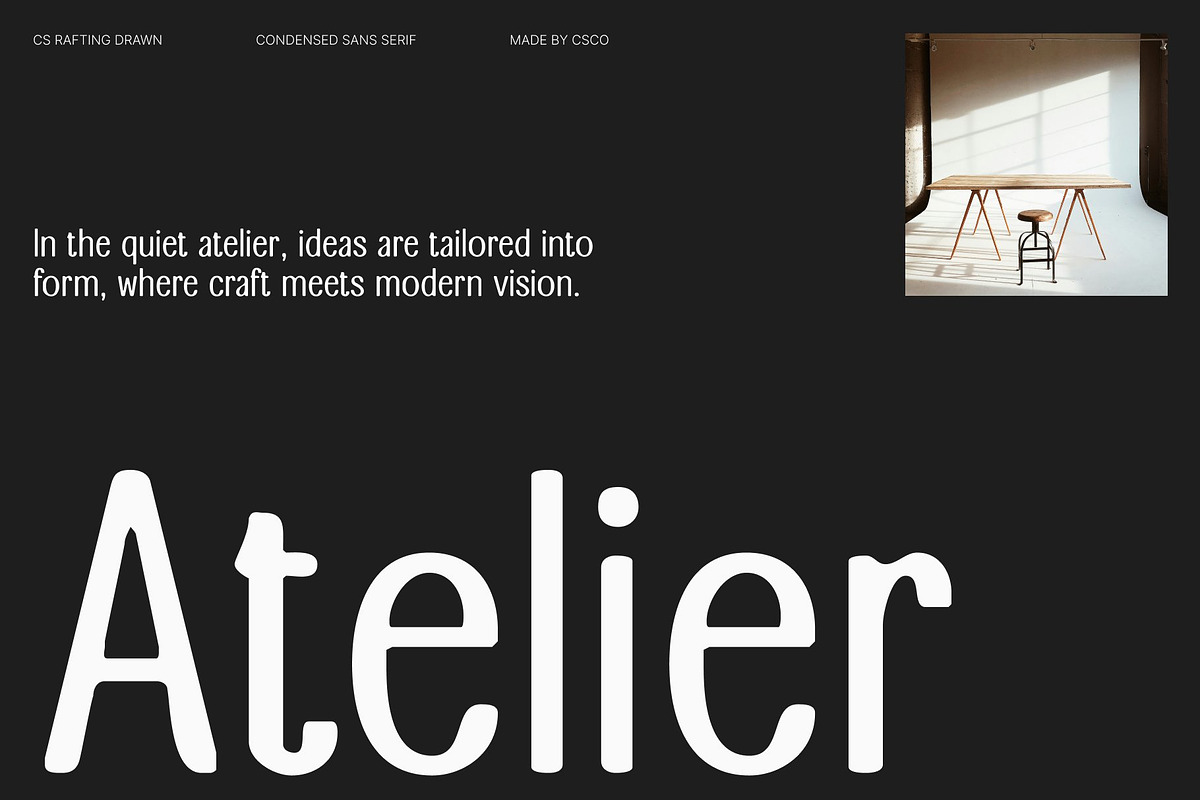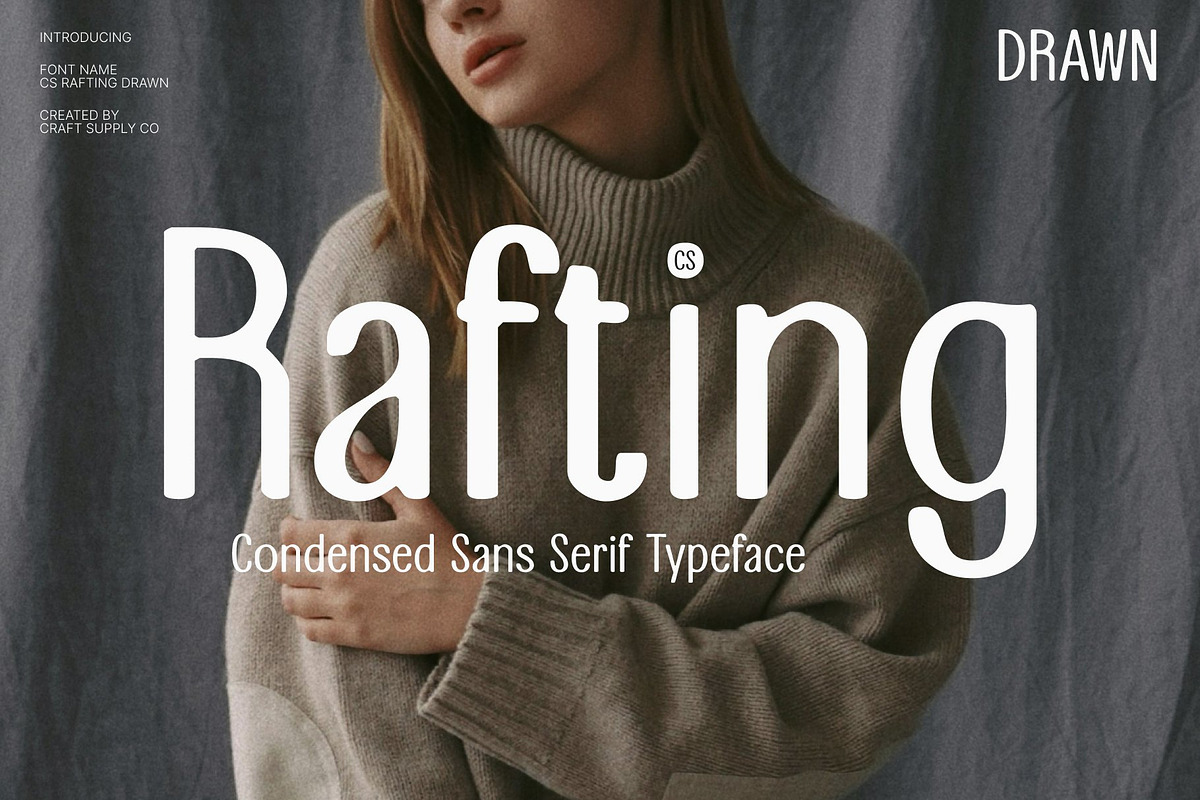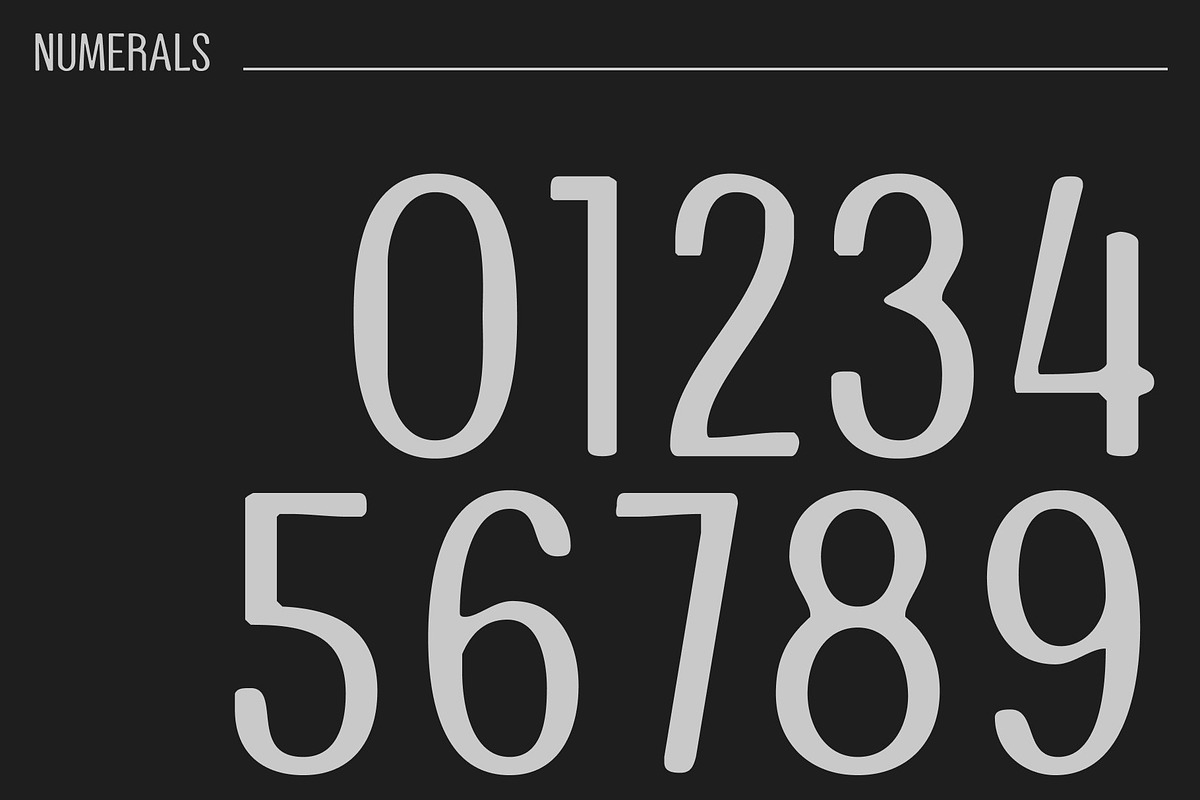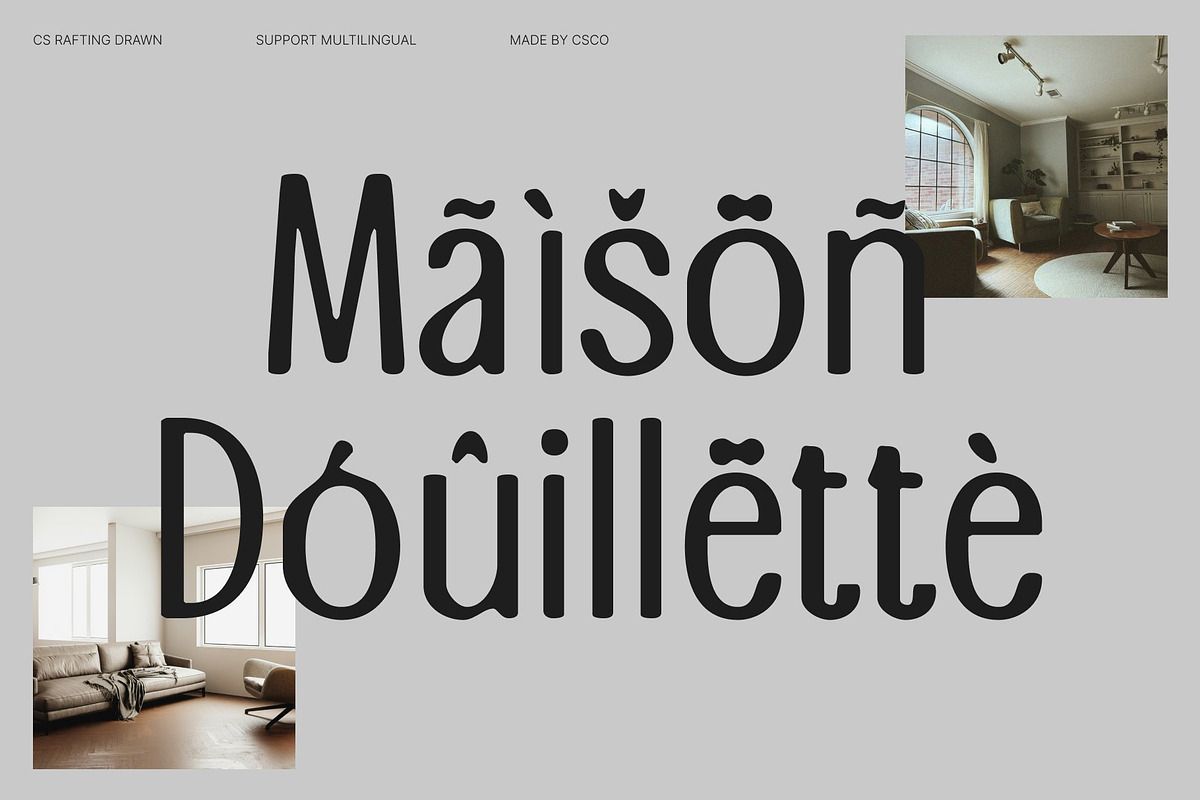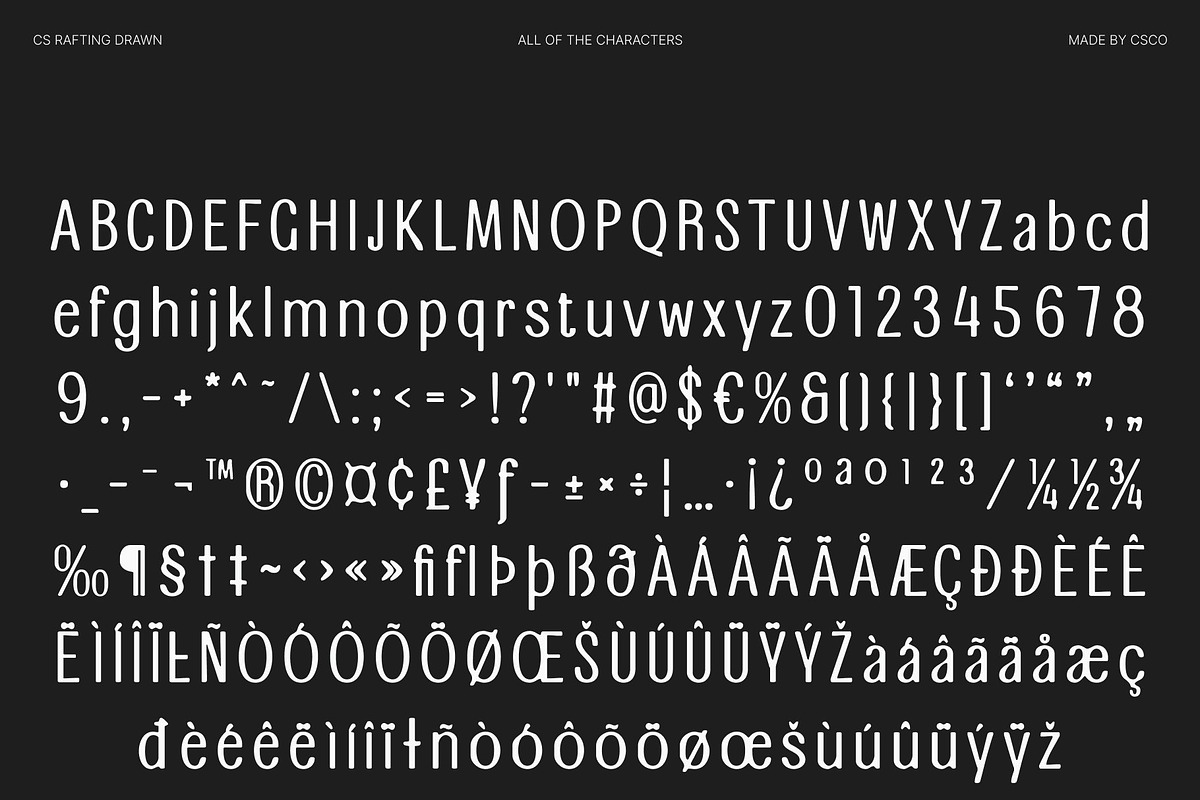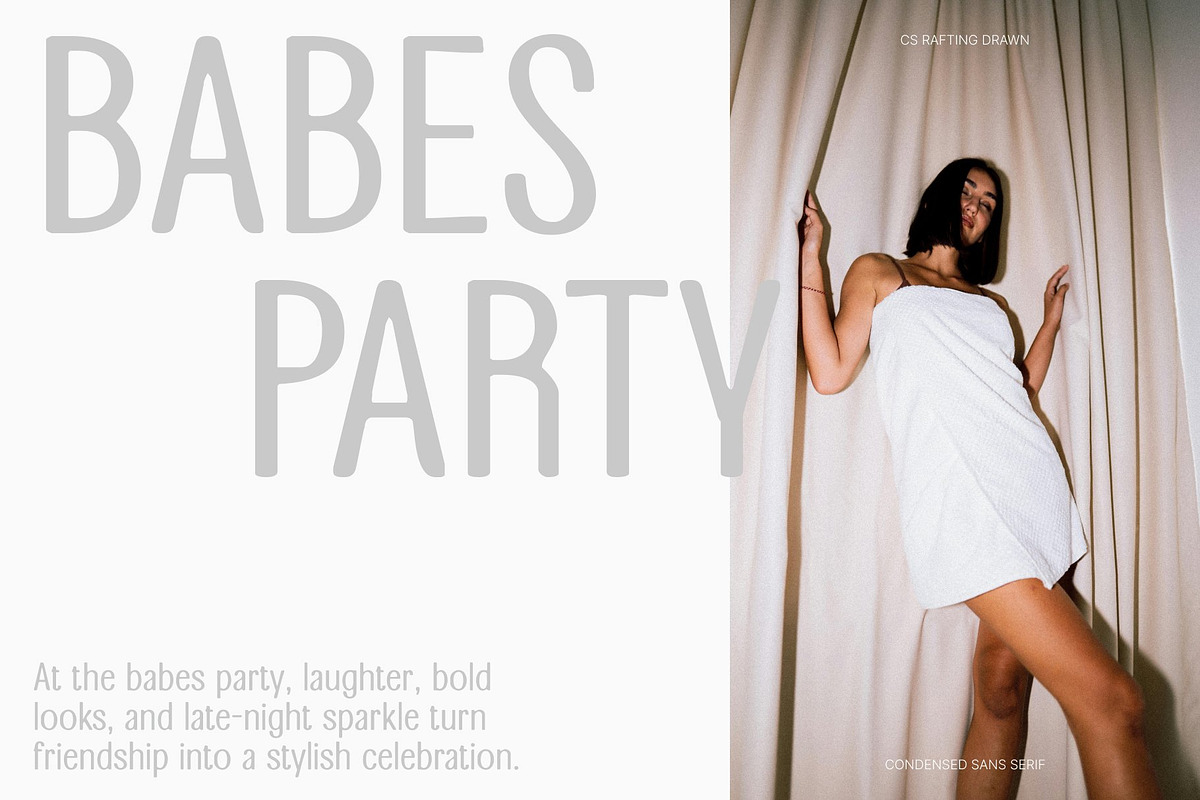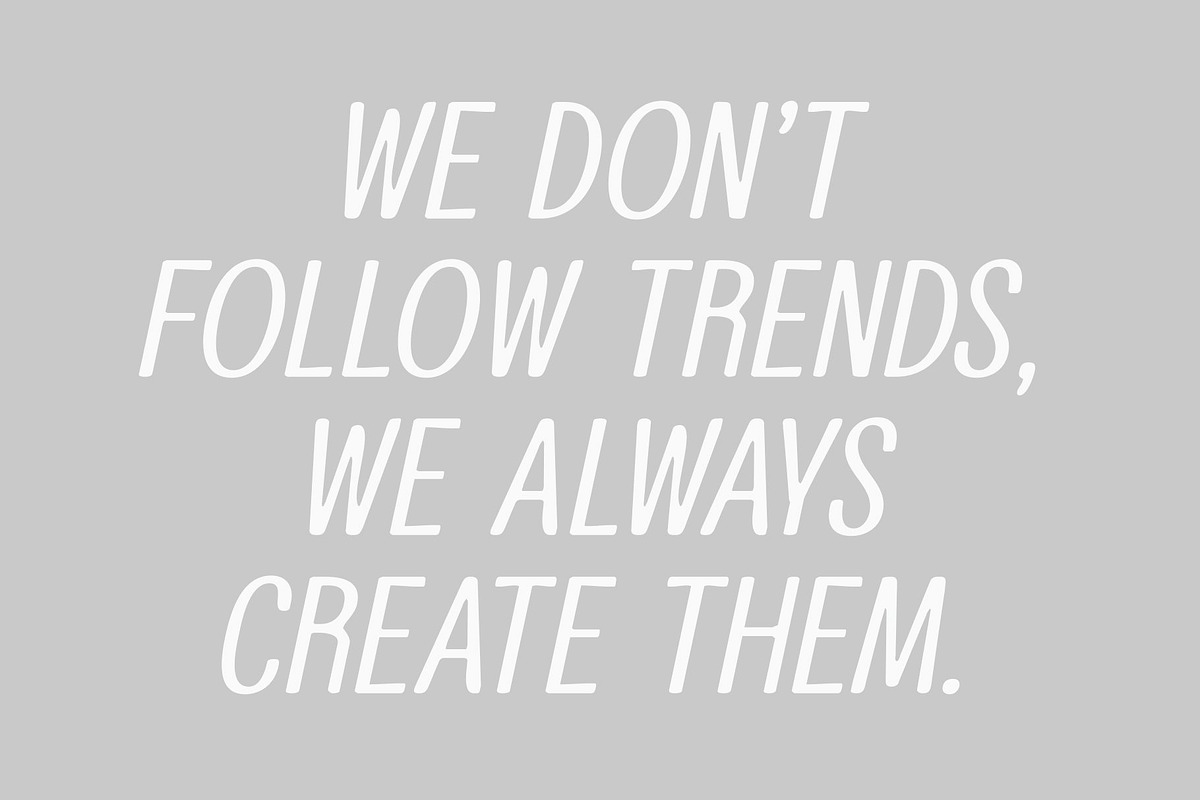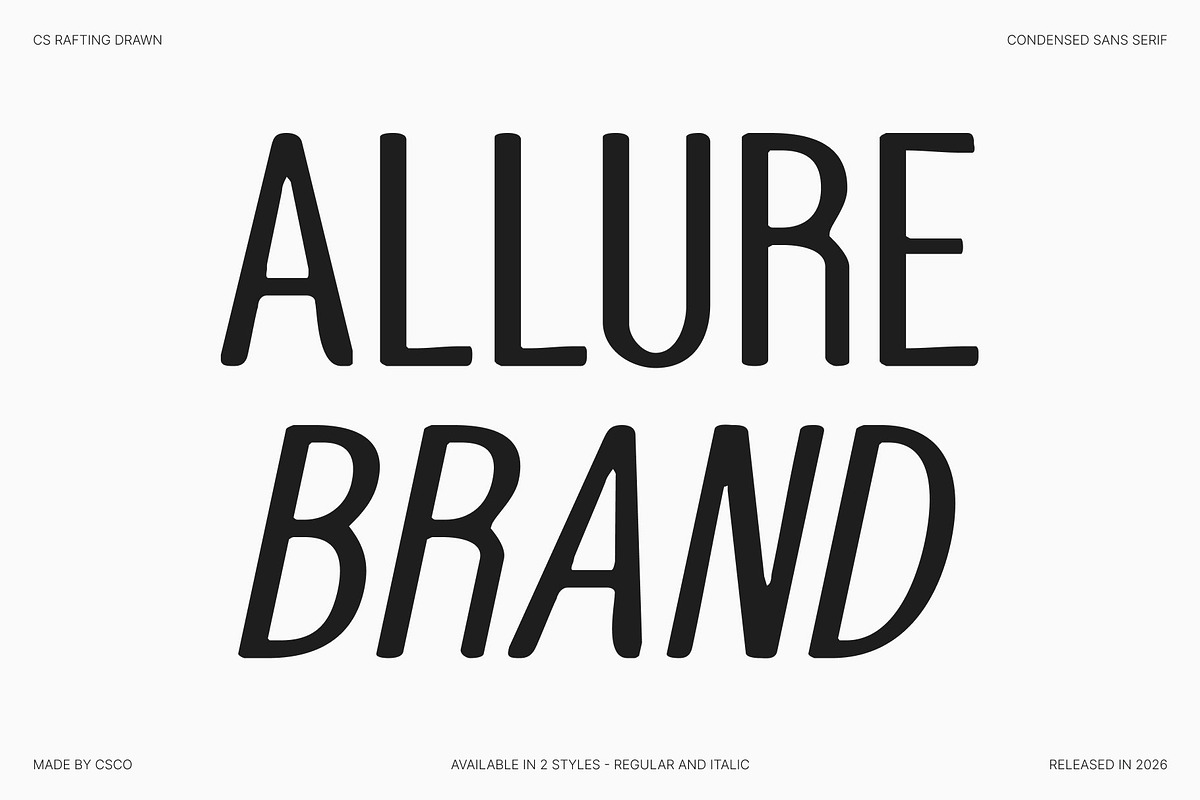
CS Rafting Drawn
CS Rafting Drawn – Modern Sans Serif with Elongated Strength
Modern Sans Serif with Confident Presence and Hand-Drawn Edge This is a modern sans serif font designed to communicate confidence through clean structure and strong proportions, enhanced with a subtle hand-drawn texture. Its clear construction and balanced weight create a solid, professional presence, while the drawn detail introduces warmth and character. The result is a typeface that feels assertive yet approachable powerful without being harsh.
Elongated Forms with Expressive Vertical Strength The elongated letterforms establish a distinctive vertical rhythm that reinforces both strength and clarity. These tall proportions add elegance and focus, making text appear structured and visually commanding. The gentle drawn finish softens the precision with organic nuance, giving the font a refined yet dynamic personality.
Clean Structure with Contemporary Character Rooted in modern simplicity, this font maintains sharp readability and versatility across sizes. Minimal detailing ensures clarity, while subtle handcrafted variations prevent the design from feeling too mechanical. This balance creates a sans serif that feels modern, confident, and full of subtle expression.
Perfect for Headlines, Branding, and Editorials Ideal for headlines, branding identities, posters, editorials, and digital design, this font delivers strong visual impact with clean communication. Its elongated elegance combined with drawn texture brings strength, clarity, and contemporary character to designs that demand a yet refined typographic voice.